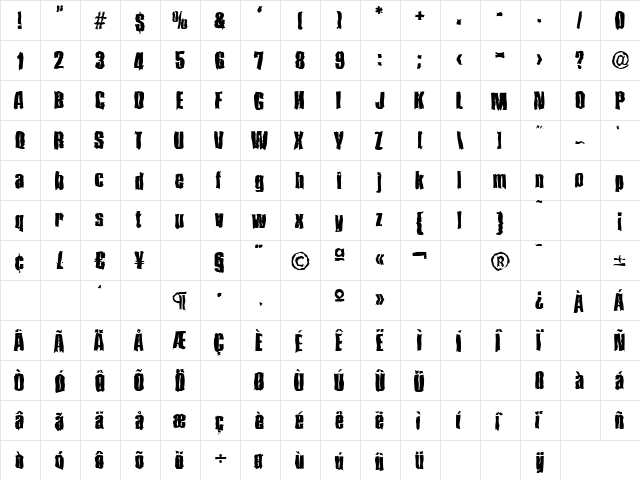
FrankBeckerRandom-ExtraBold Regular
Design Context for FrankBeckerRandom-ExtraBold Typeface
FrankBeckerRandom-ExtraBold is a composed and adaptable typeface that performs quietly and consistently across a wide range of design contexts. The heavy weight commands attention and anchors typographic hierarchies.